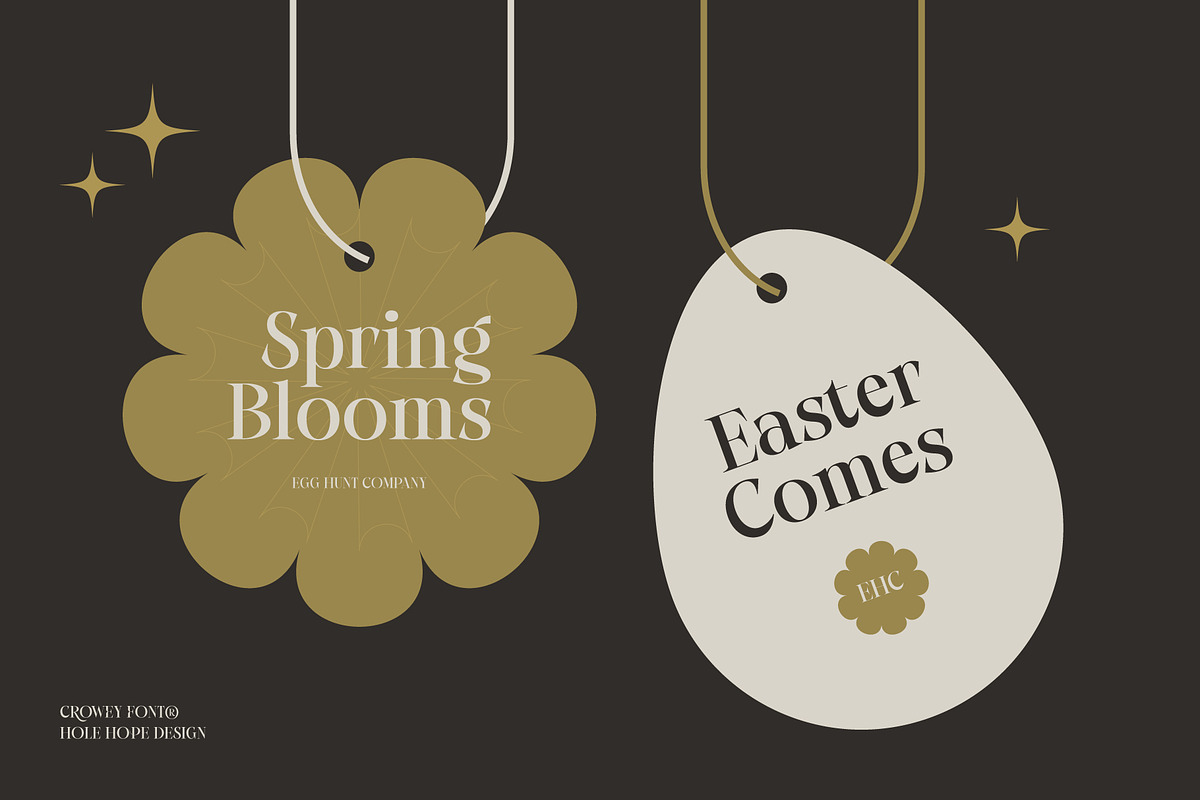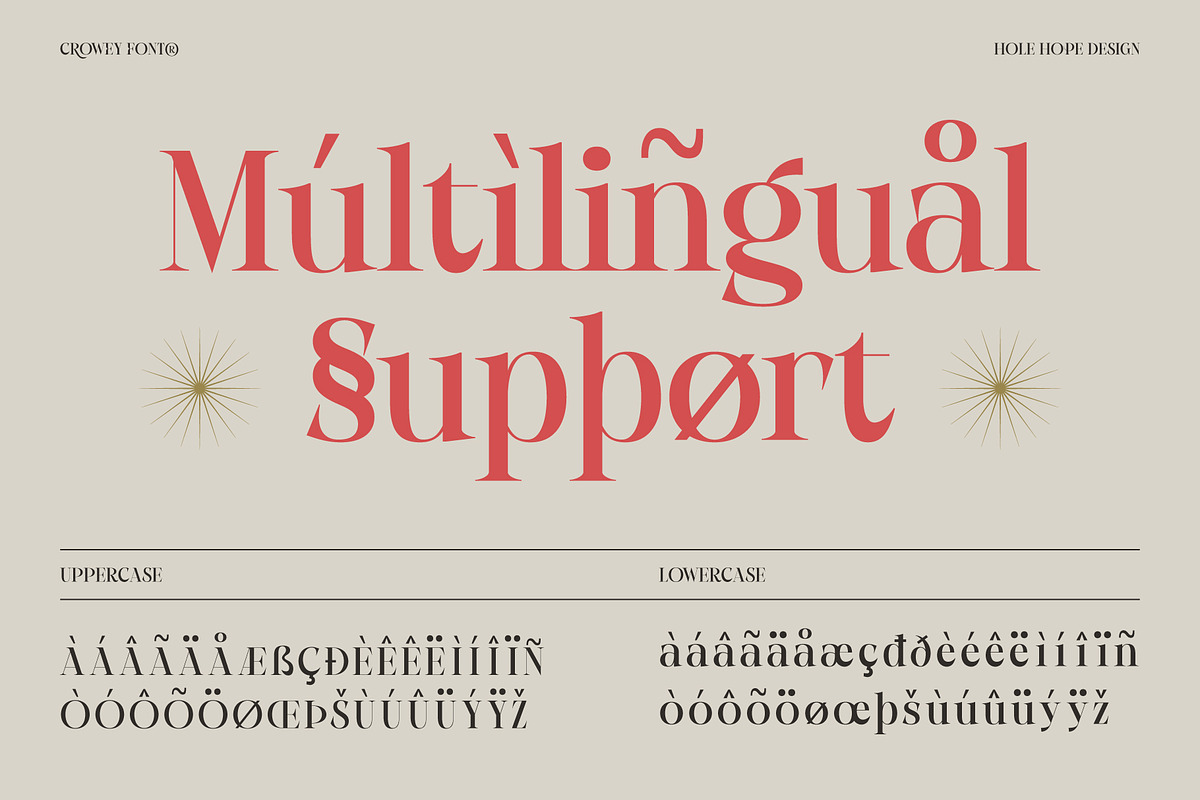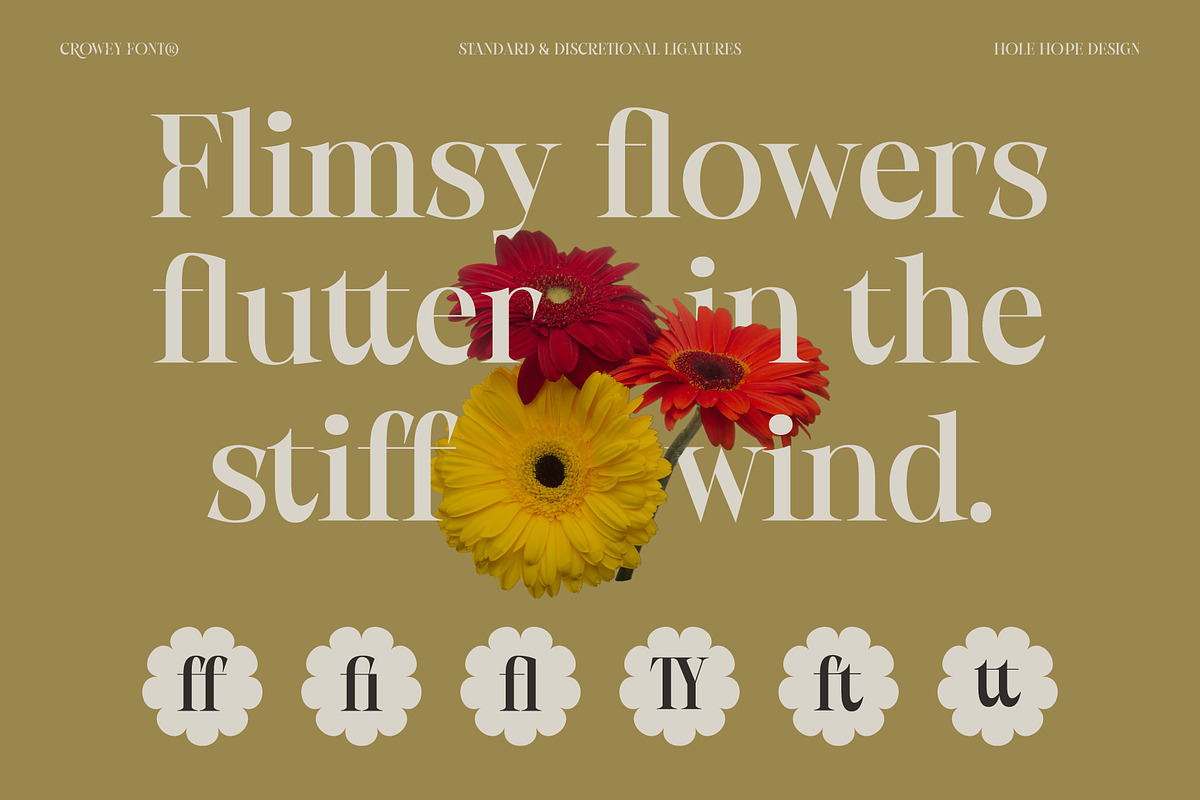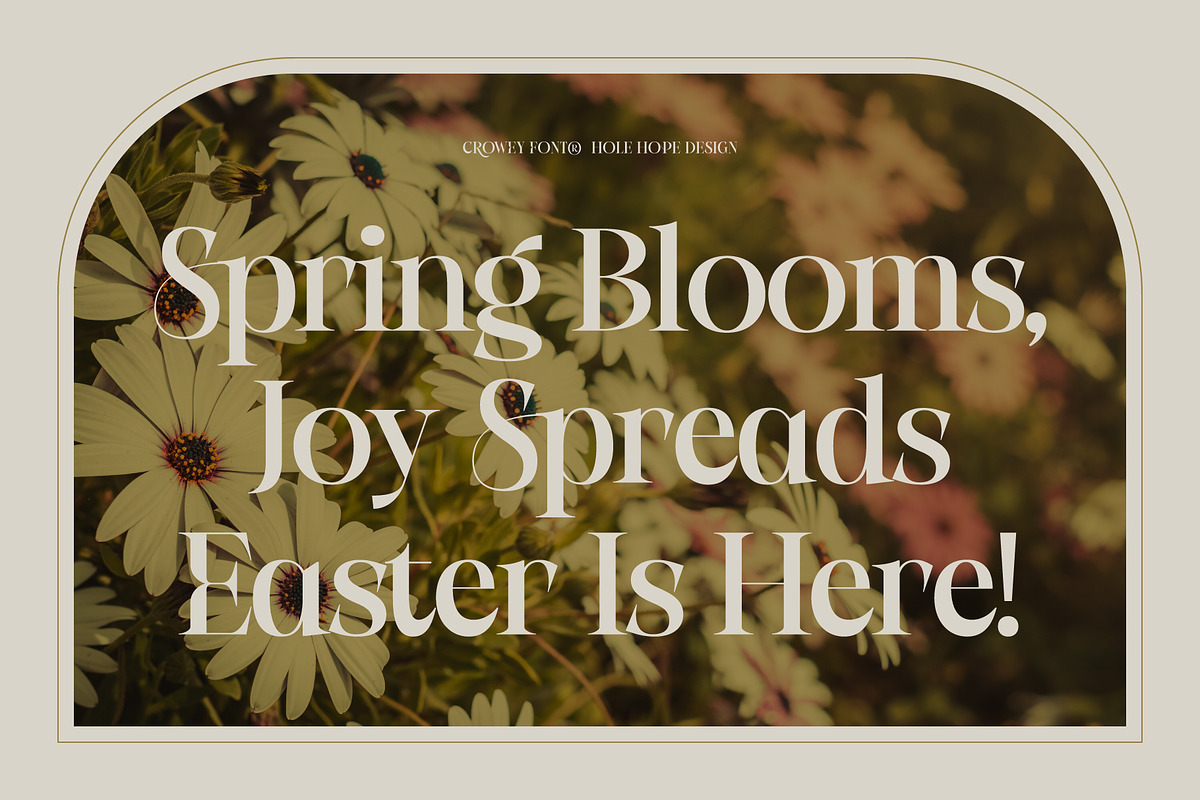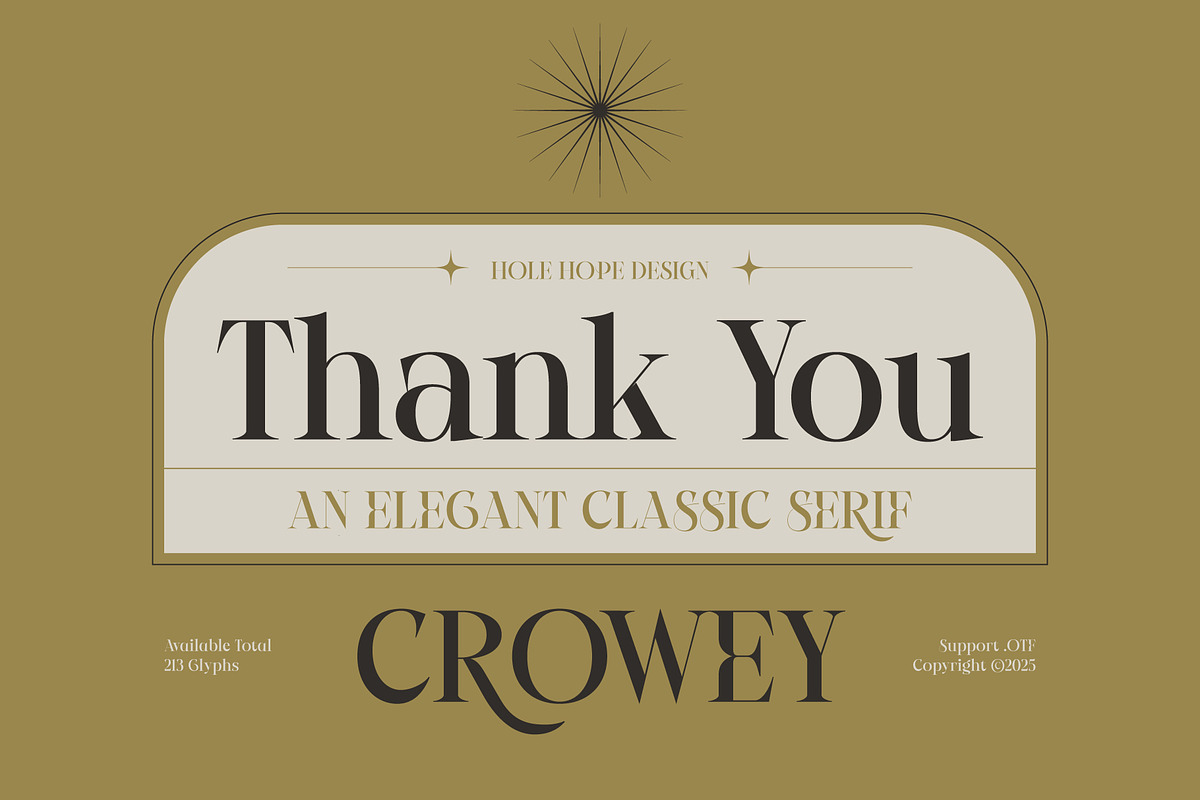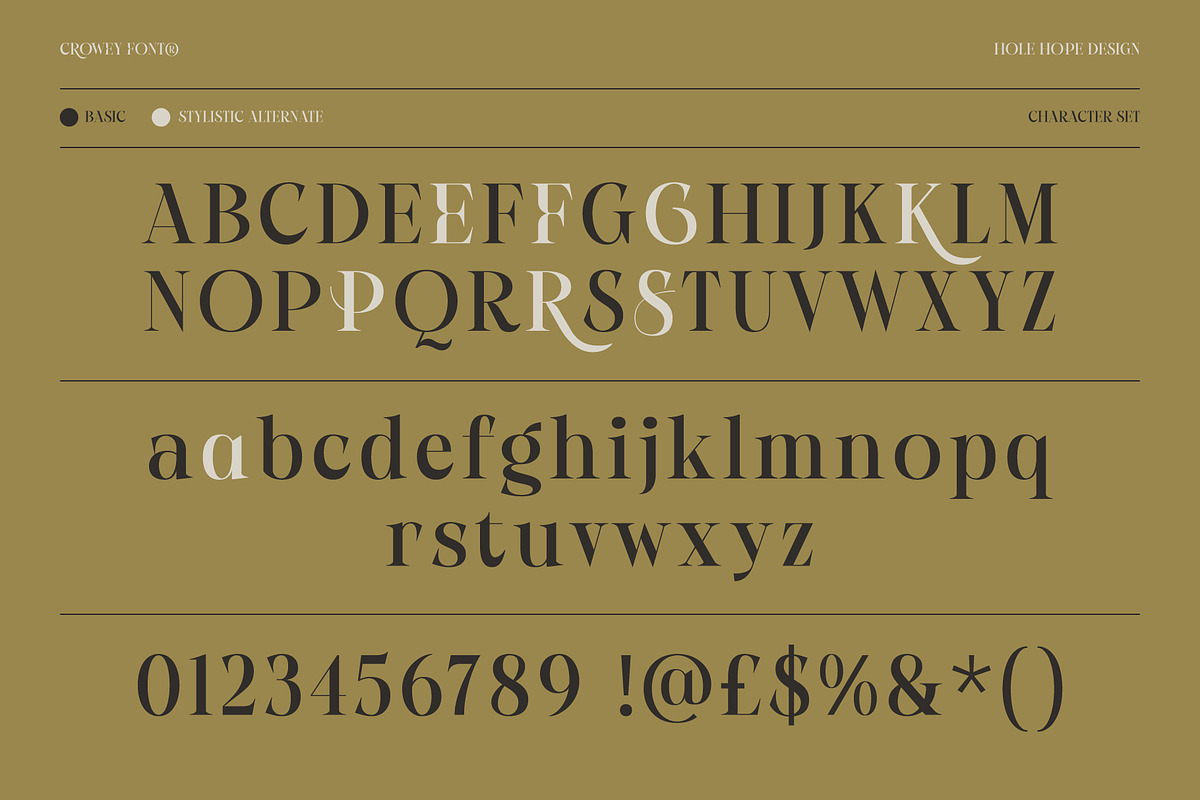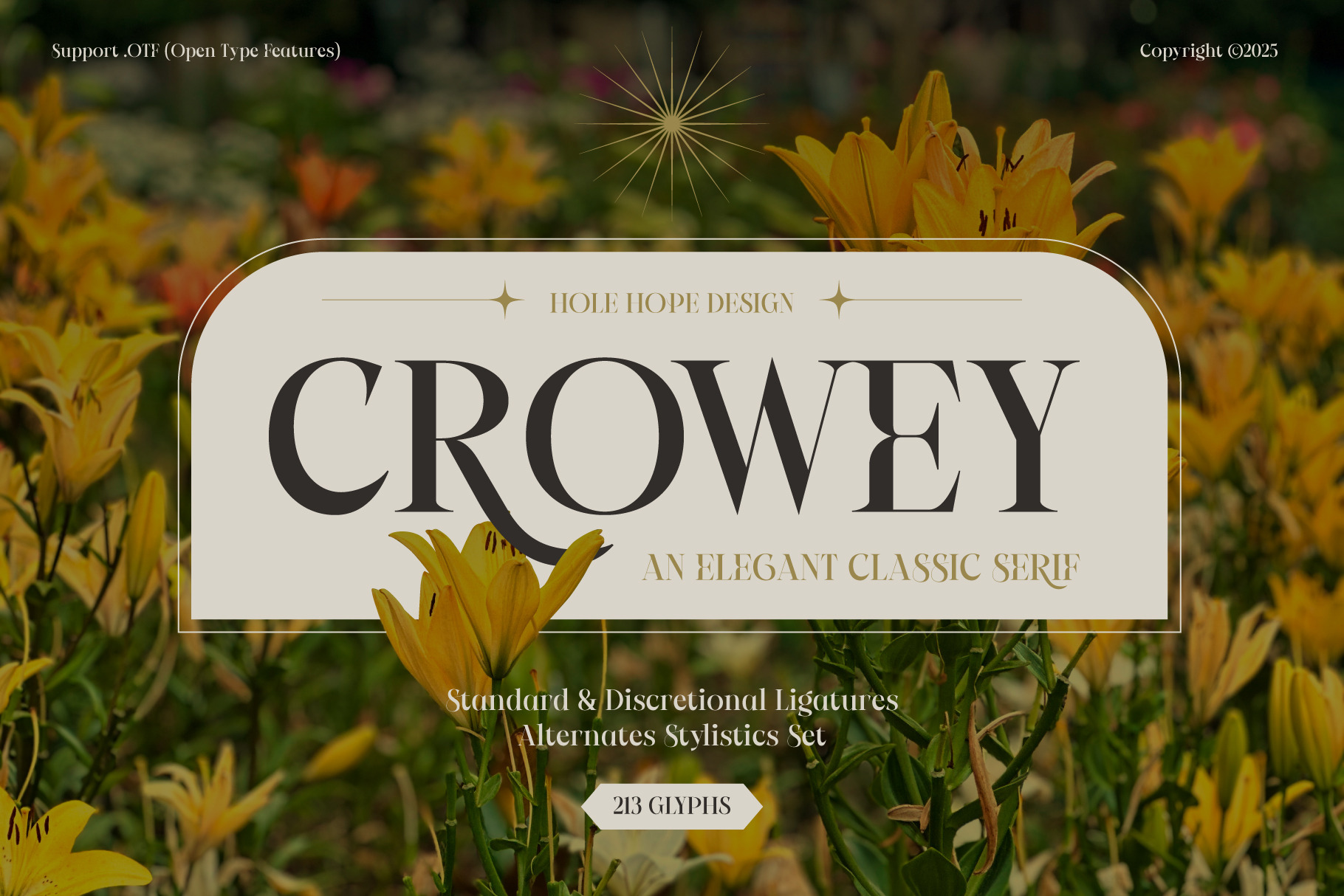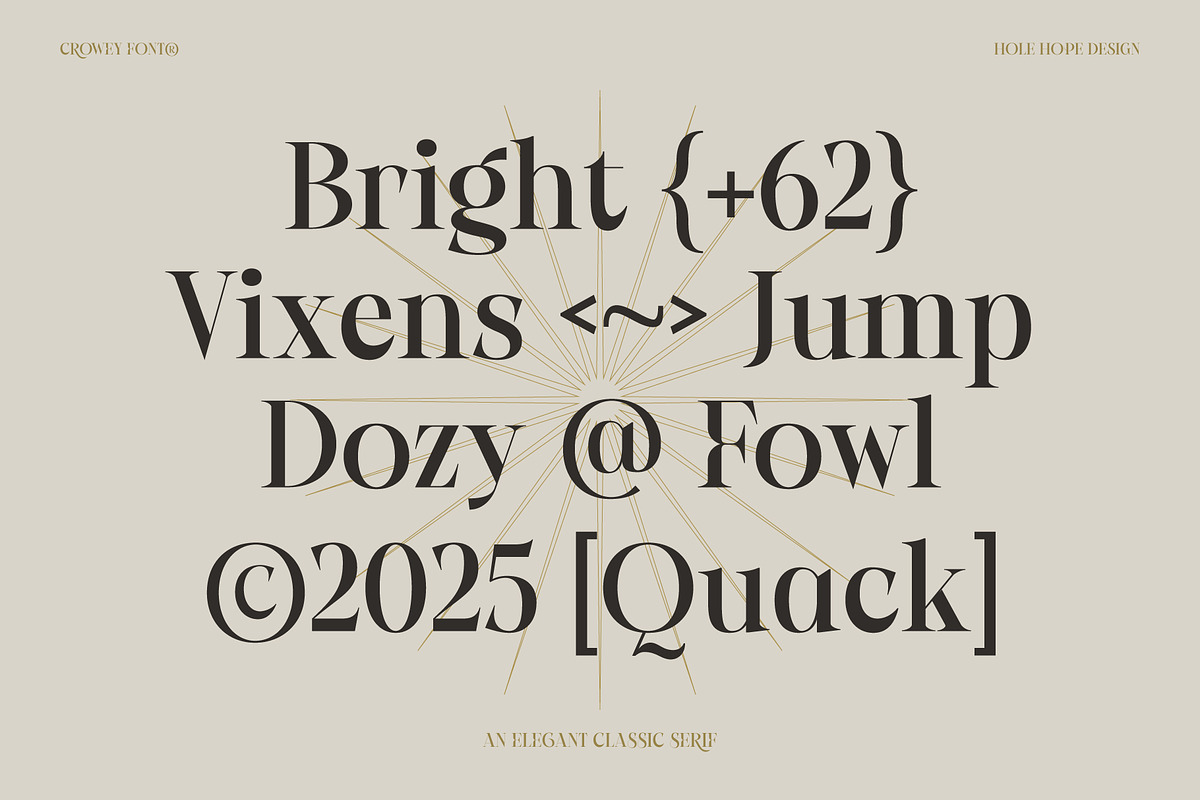
Crowey | Elegant Classic Serif Font
Crowey is a timeless beauty, blending sophistication with a touch of charm. Designed for the Easter Day collection, this font radiates elegance, making it perfect for celebrating the season of renewal and joy. Its delicate yet confident strokes create a luxurious feel, capturing the essence of classic typography while remaining effortlessly modern. Crowey brings a sense of tradition and refinement, making every project bloom with beauty.
Crowey | Elegant Classic Serif Font features:
- Character Set (Uppercase & Lowercase)
- Standard & Discretional Ligatures
- Several Alternates Stylistics Set
Dive into the world of Easter Day (Beauty-Serif) and bring the magic to your design!